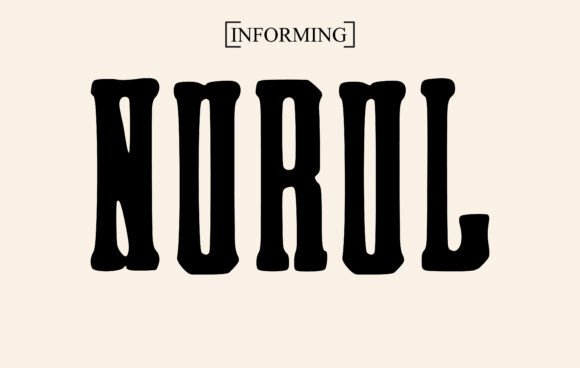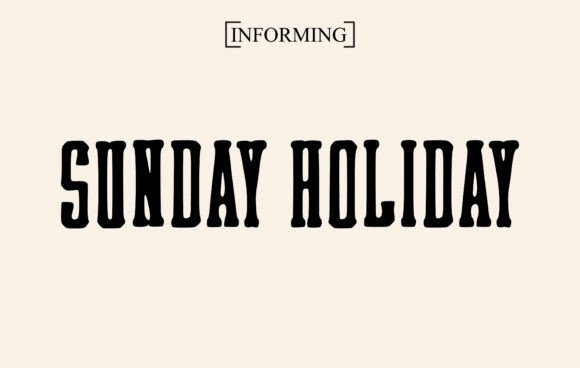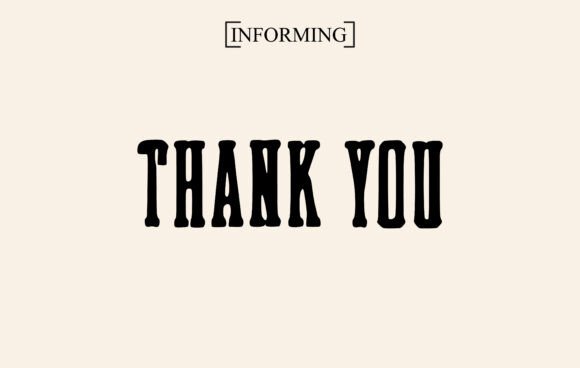
Nurul Font
About the Nurul Font
Presenting Nurul Font, a unique and stylish typeface that will make your work stand out. This font is designed to be a true favorite and it has the potential to take your creative ideas to the highest level
Nurul’s confident, slightly playful personality makes it ideal for headlines, logos, and short-form text in branding projects, posters, and social media graphics. Its legibility is best utilized in larger sizes; avoid using it for body copy or extended text blocks where readability suffers.
Pairing Nurul effectively depends on the desired impact. For a modern, energetic feel, consider pairing it with a clean sans-serif like Open Sans or Lato. A more classic and sophisticated look can be achieved by combining it with a refined serif font such as Garamond or Merriweather.
For a touch of elegance, a delicate script font like Great Vibes can complement Nurul’s boldness, but use it sparingly as an accent. Avoid pairing it with overly ornate or excessively decorative fonts which could clash with its straightforward design.
Nurul Font Usage Examples
Nurul Font Example